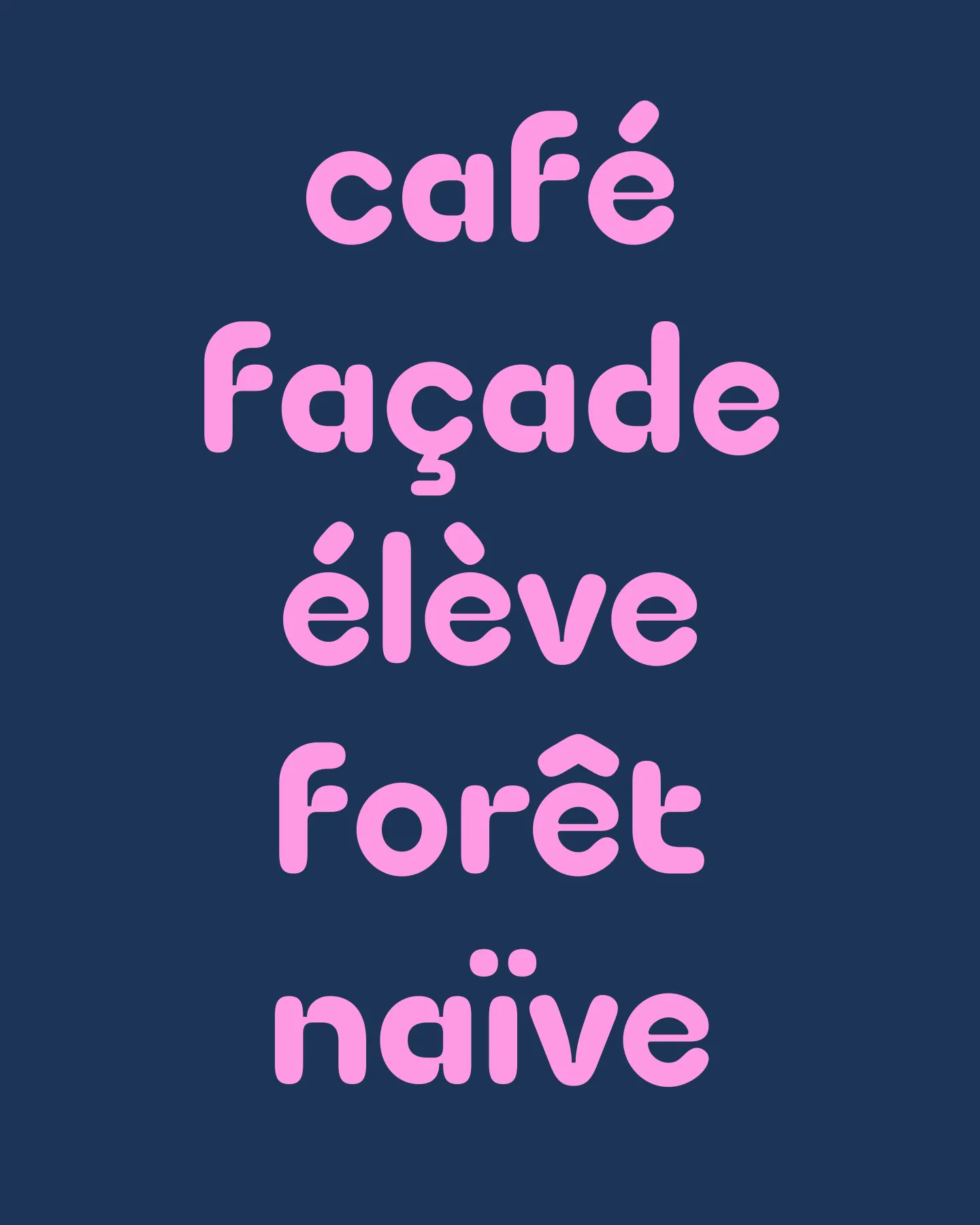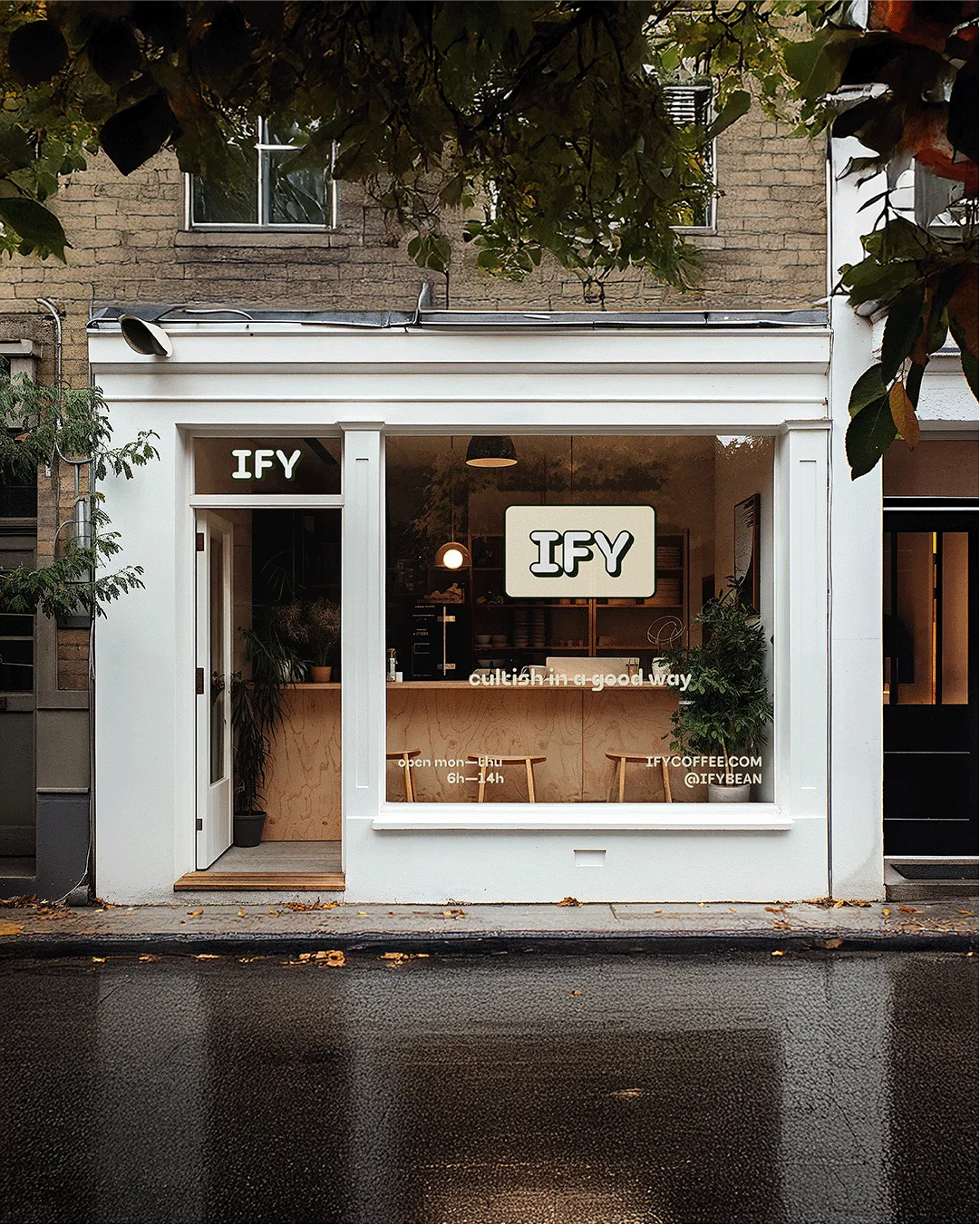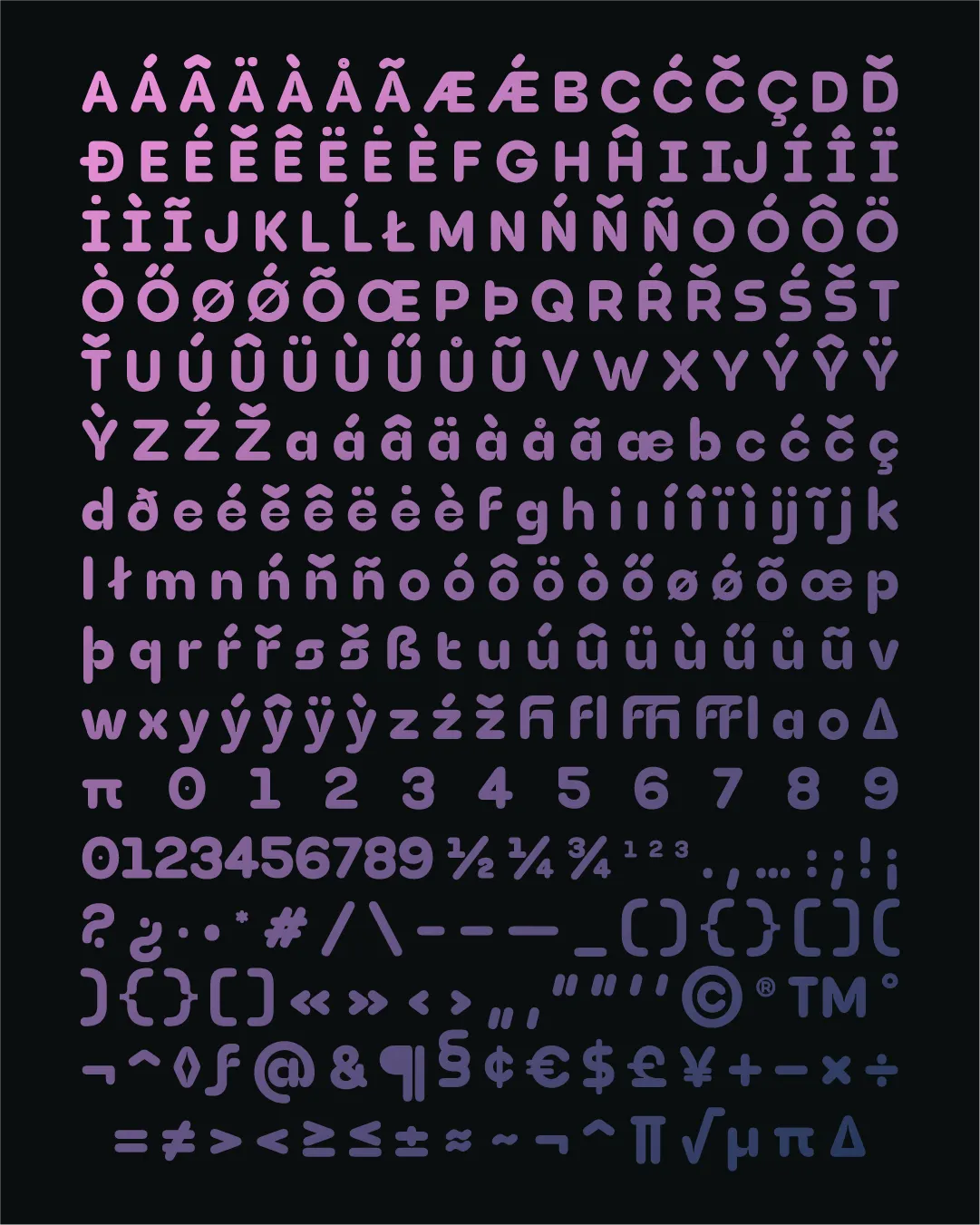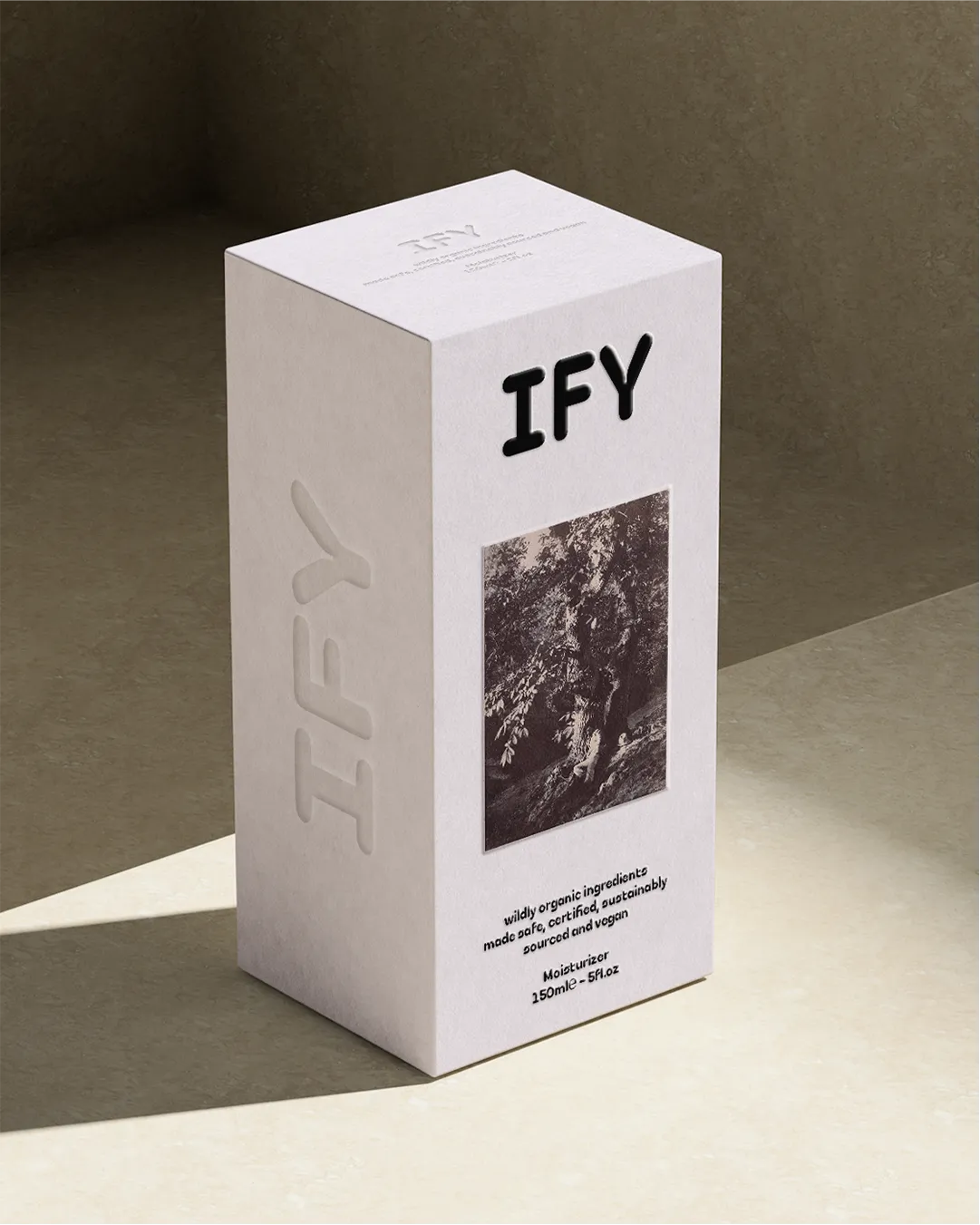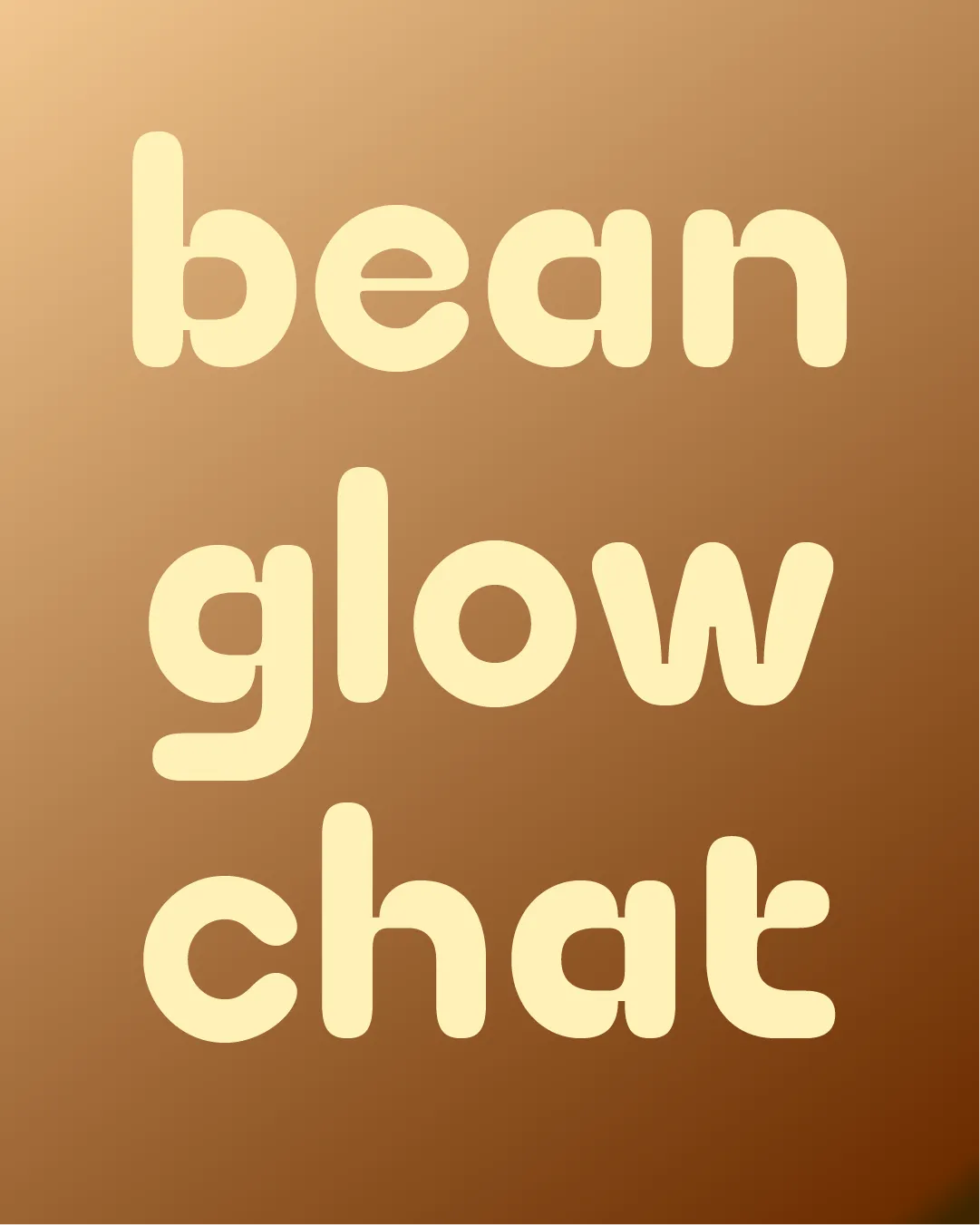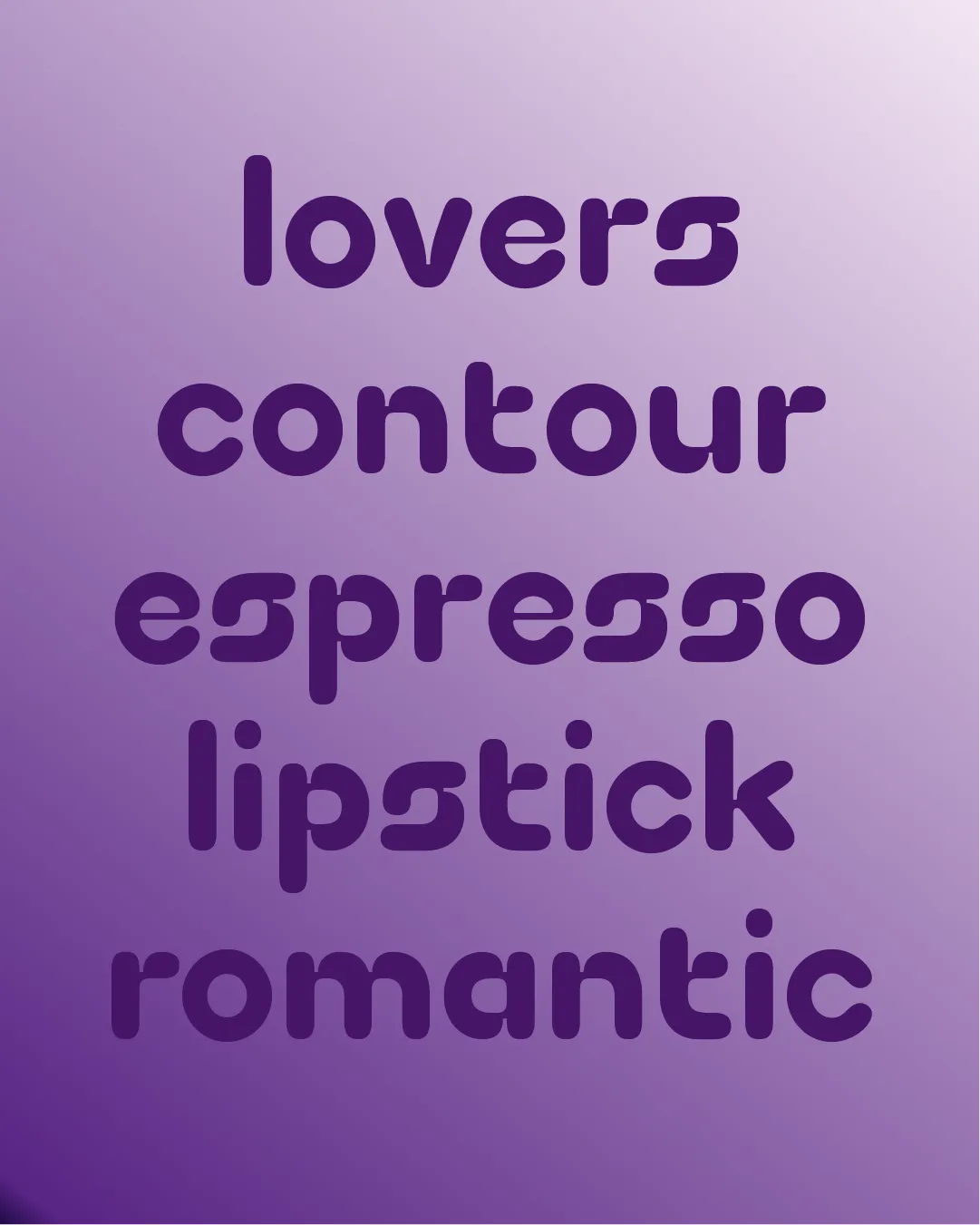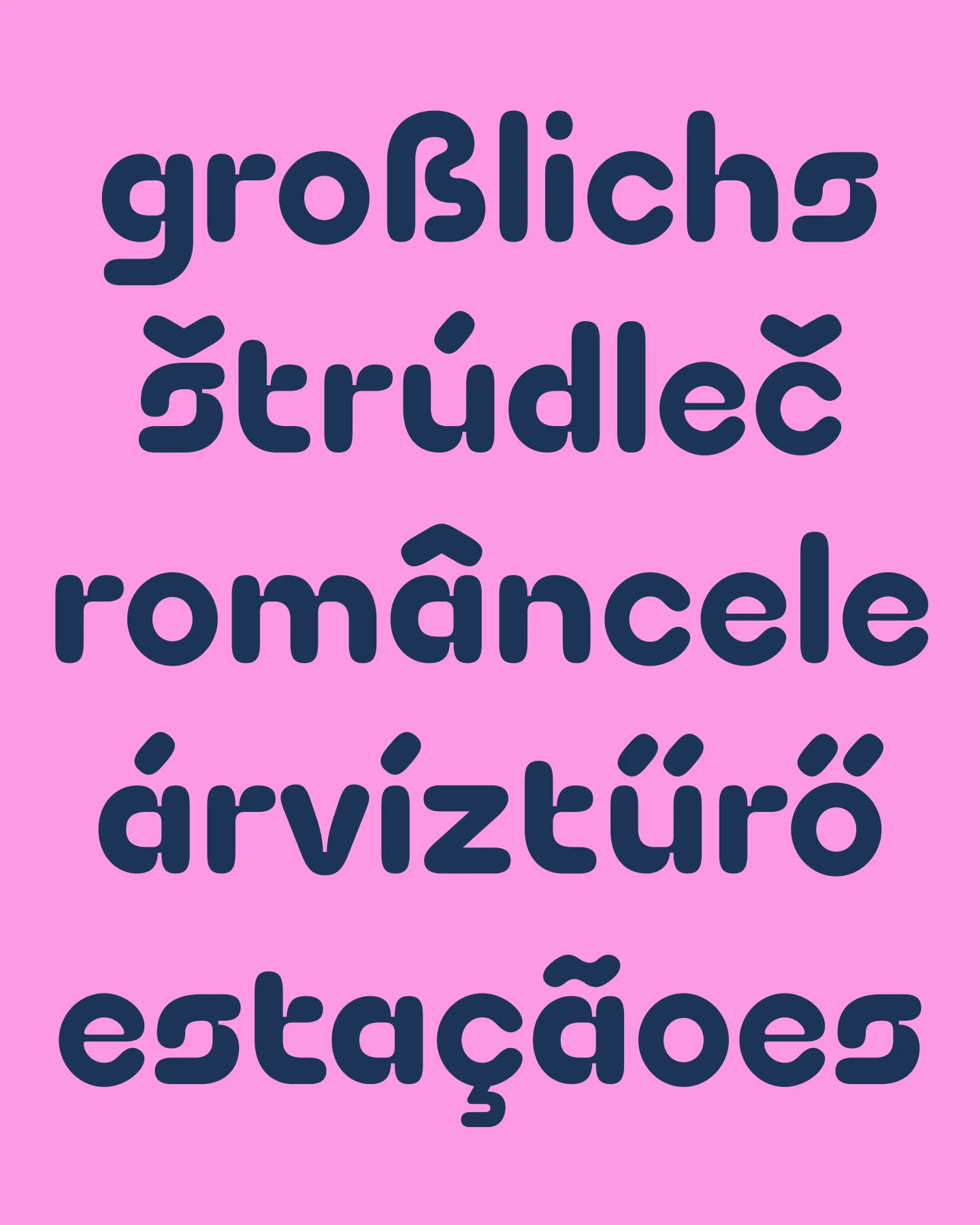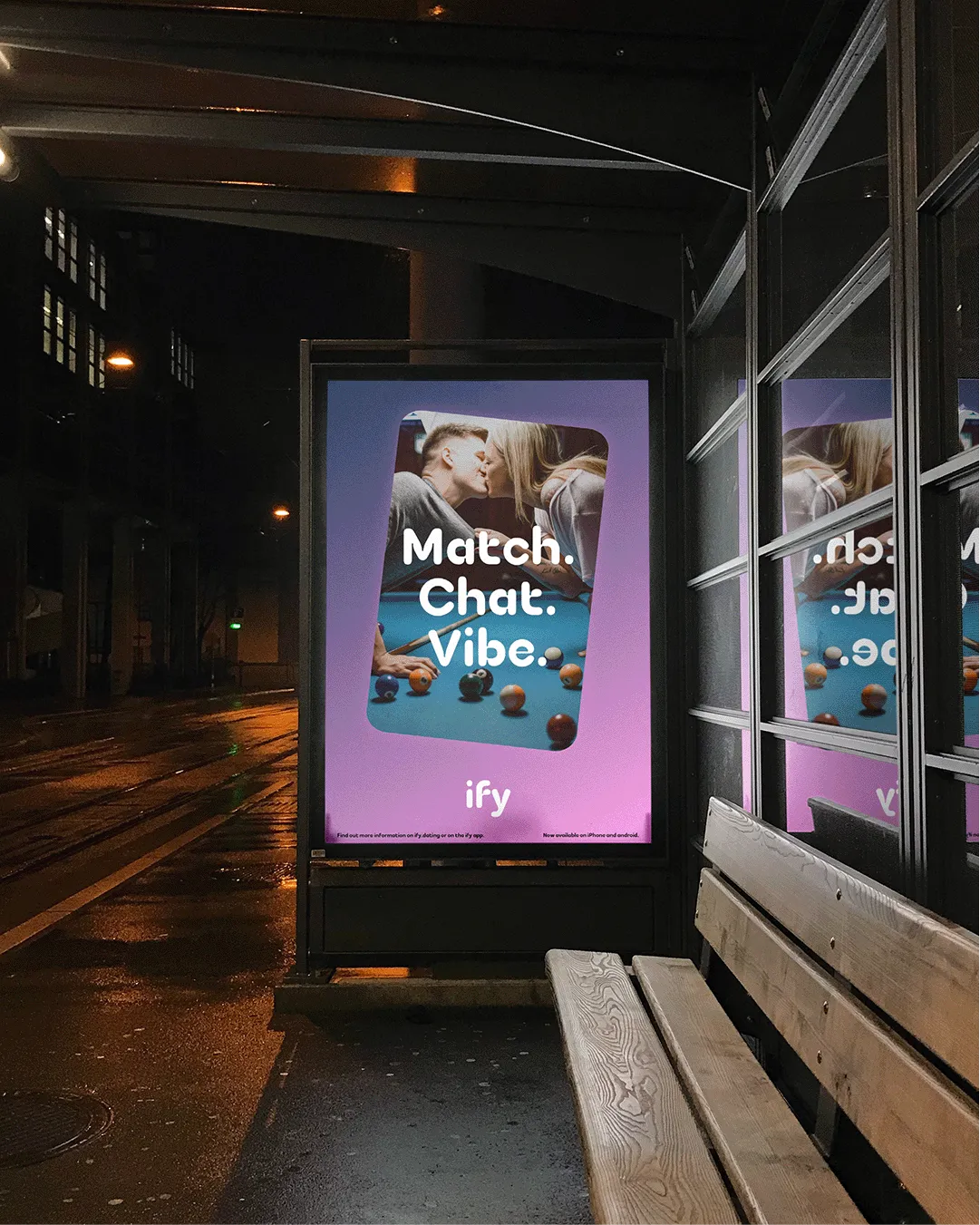
Ify (I Feel You) is the first original font from Right Now Type (Walter Oscar Rothe & Wouter Van Nes).
Inspired by rounded lettering and type in magazines and street signs, they wanted to make a distinctive rounded font that starts almost mono-linear but finds its character in precise inktraps that give it a modern and retro-futuristic feel.
RNT - [Right Now Type] are Wouter van Nes and Walter Oscar Rothe. Wouter van Nes [05/01/1995, Hasselt] is a type & graphic designer based in Ghent. Walter Oscar Rothe [09/08/1991, Waregem] is a type & brand designer based in Antwerp.
Both are interested in the position of type and typography on a global scale. Finding the balance between expression, technology and innovation. ◊